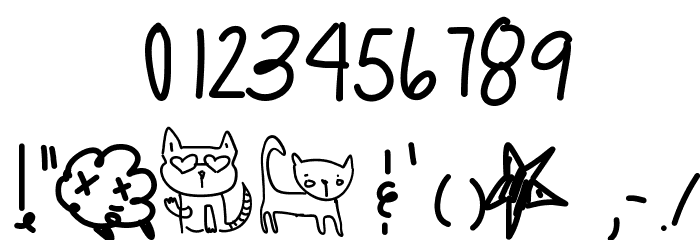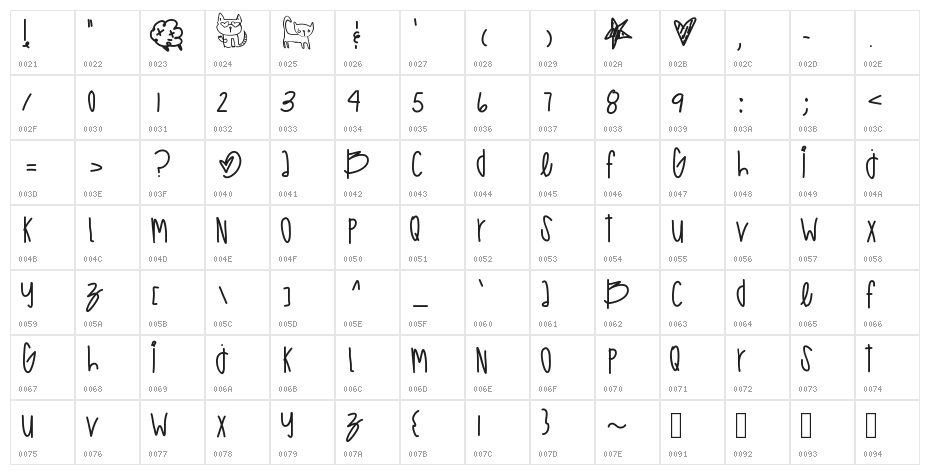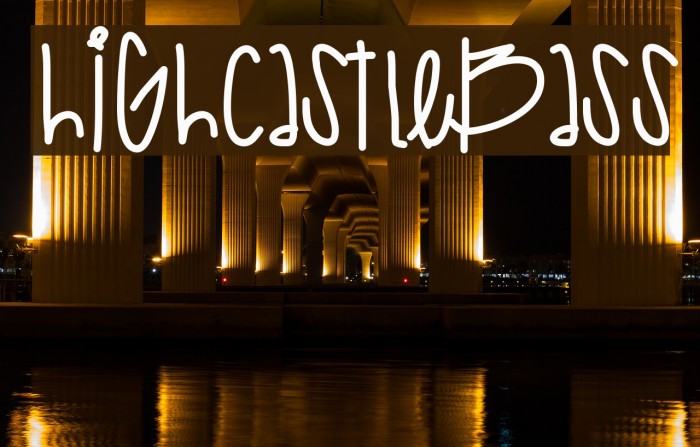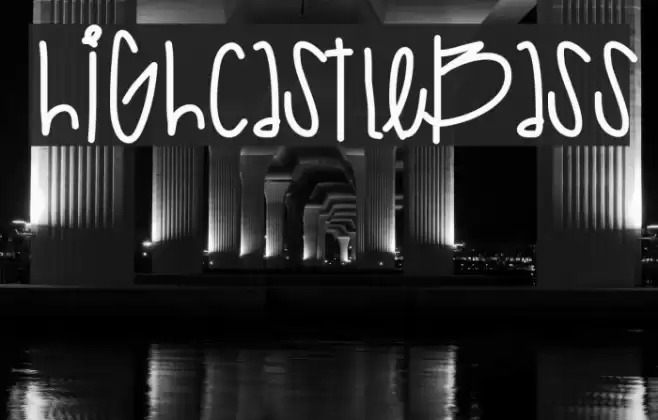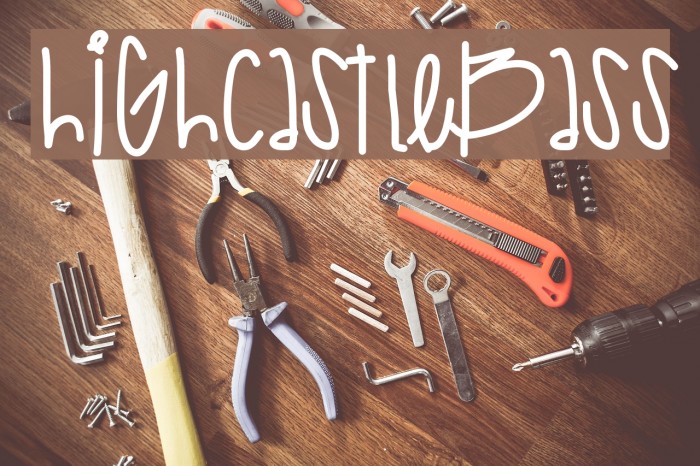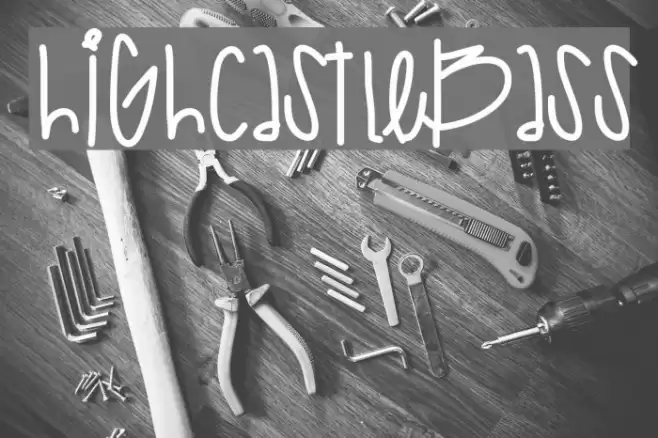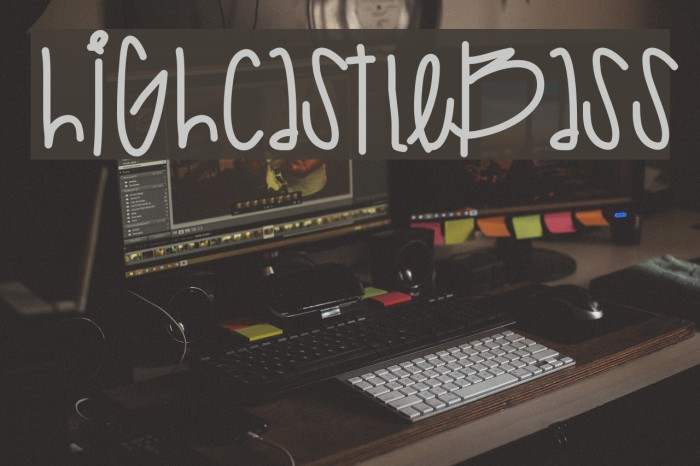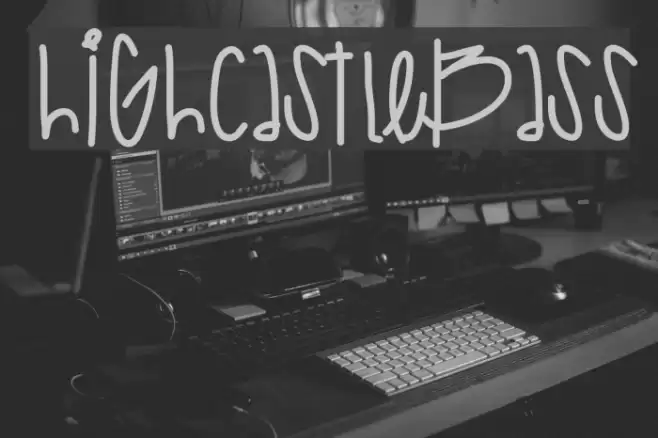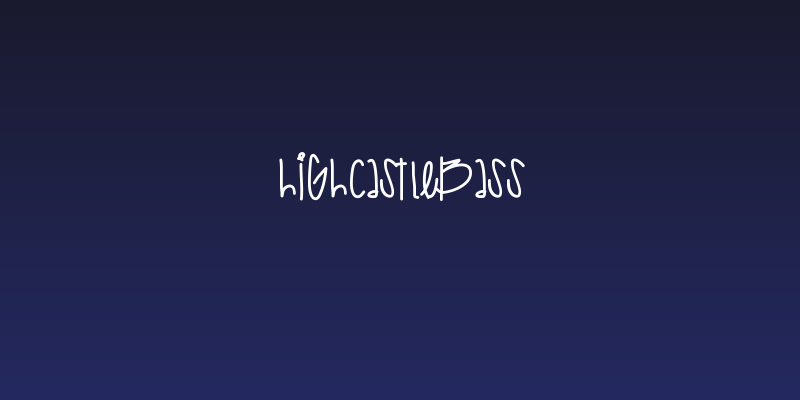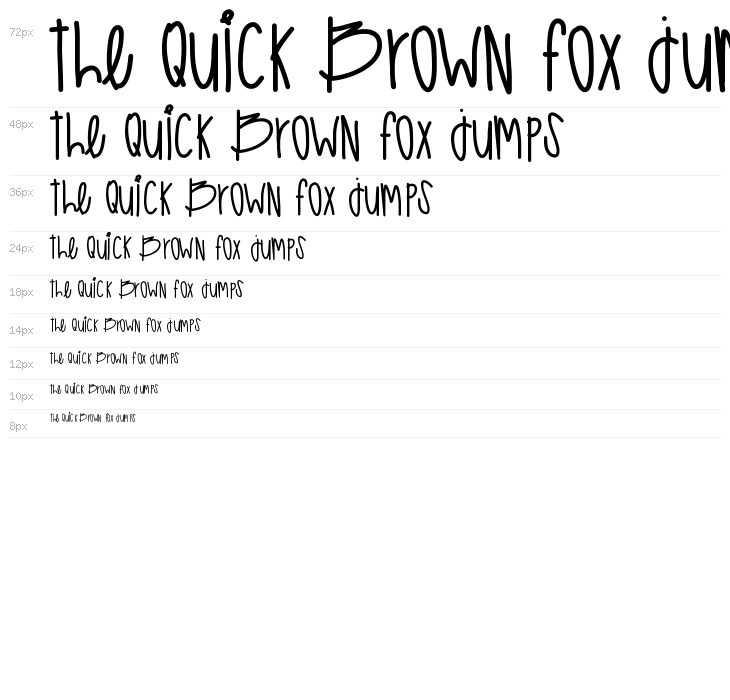
HighCastleBass Font
HighCastleBass Description
This playful and whimsical handwritten font features a unique and casual style, characterized by its tall, narrow letters with a slightly uneven baseline. The strokes are smooth and flowing, giving it a friendly and approachable appearance. The uppercase and lowercase letters maintain a consistent style, with some quirky elements like the looped 'l' and the distinctive 'g'. Numbers are clear and legible, matching the overall aesthetic. Special characters are creatively designed, adding to the font's charm. This font is perfect for projects that require a personal touch or a fun, informal vibe.
| Overall Style | Whimsical |
| Use Case | Logos, Headlines, Informal text |
| Proposed Projects | Ideal for greeting cards, children's books, casual invitations, and playful branding. |